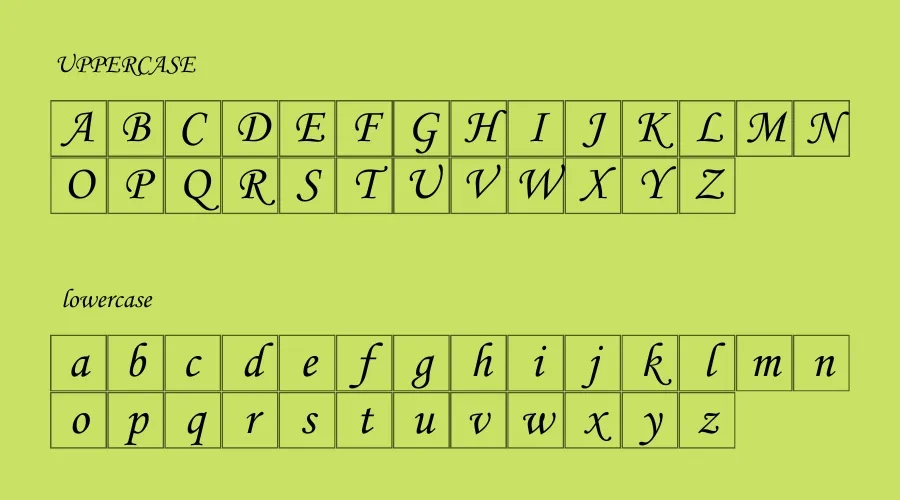
Monotype Corsiva Font
About Monotype Corsiva Font
Monotype Corsiva Font was created by Patricia Saunders. It is an Italic font made in the early Italian cursive designs. The typeface's capital letters resemble the Swash style. Additionally, it works well for brief paragraphs and is frequently used for promotional purposes.
There are various weights and styles in this Monotype font family. Since the Monotype firm has created all of the fonts that have been used in various contexts.